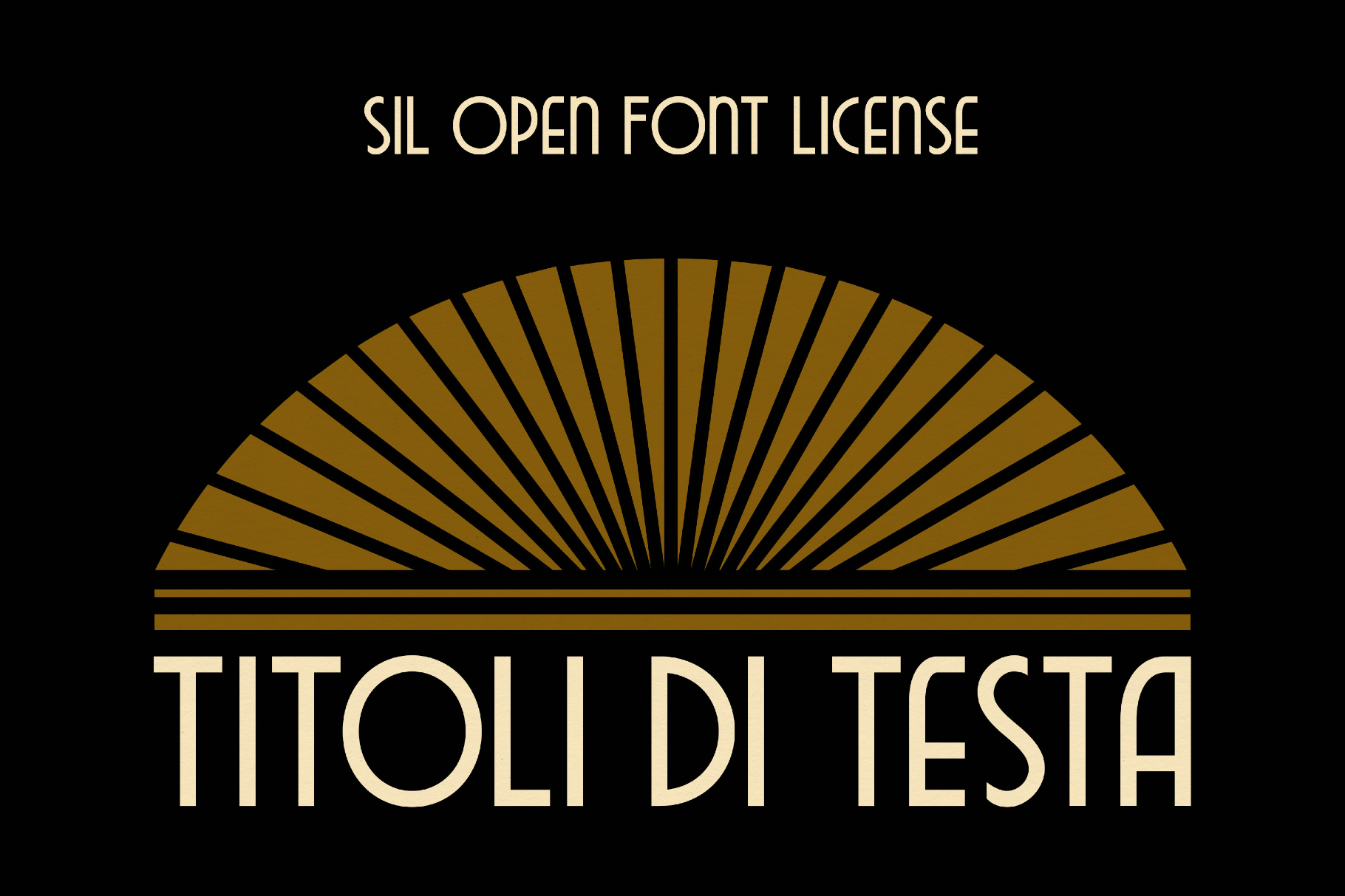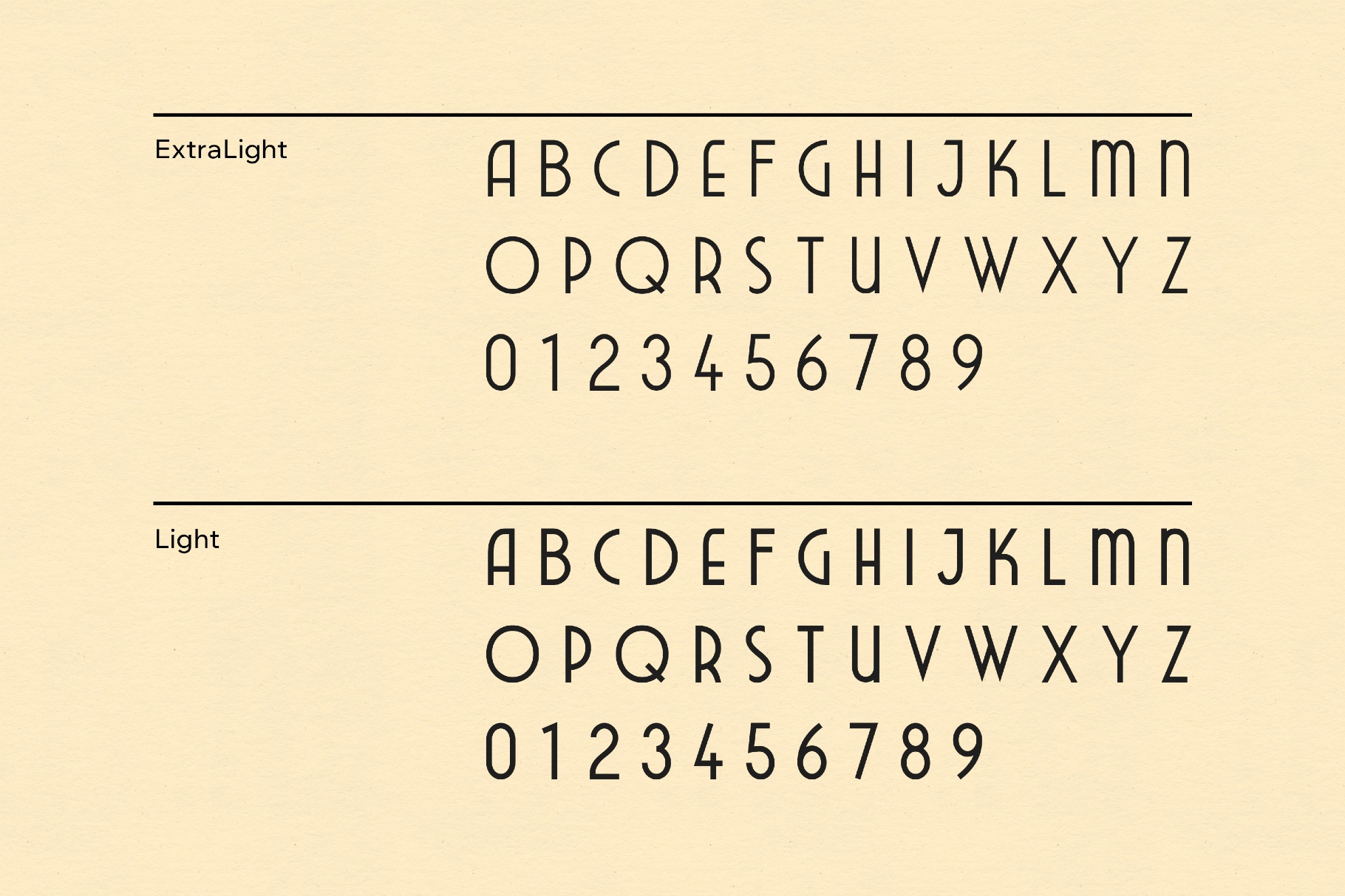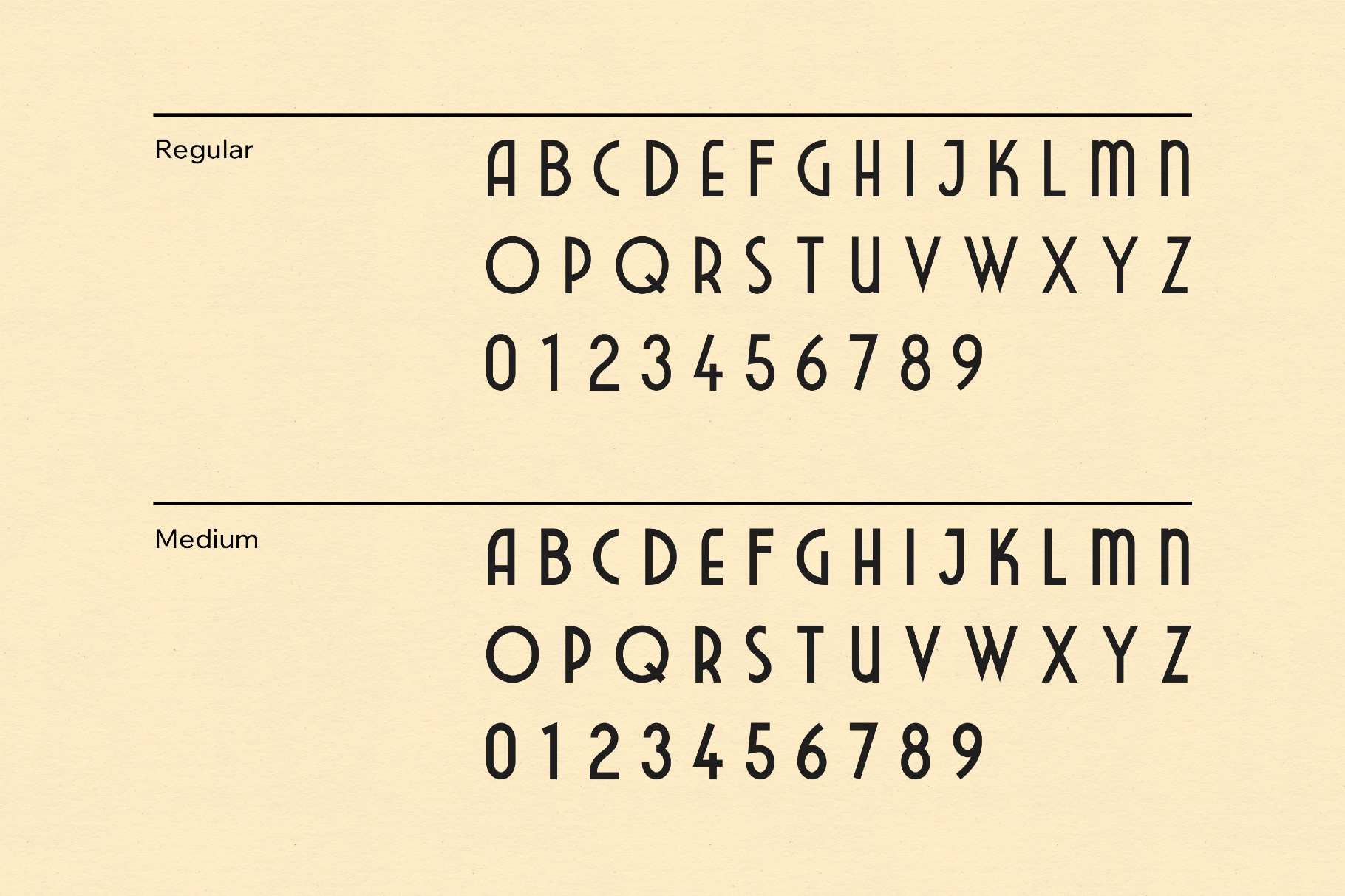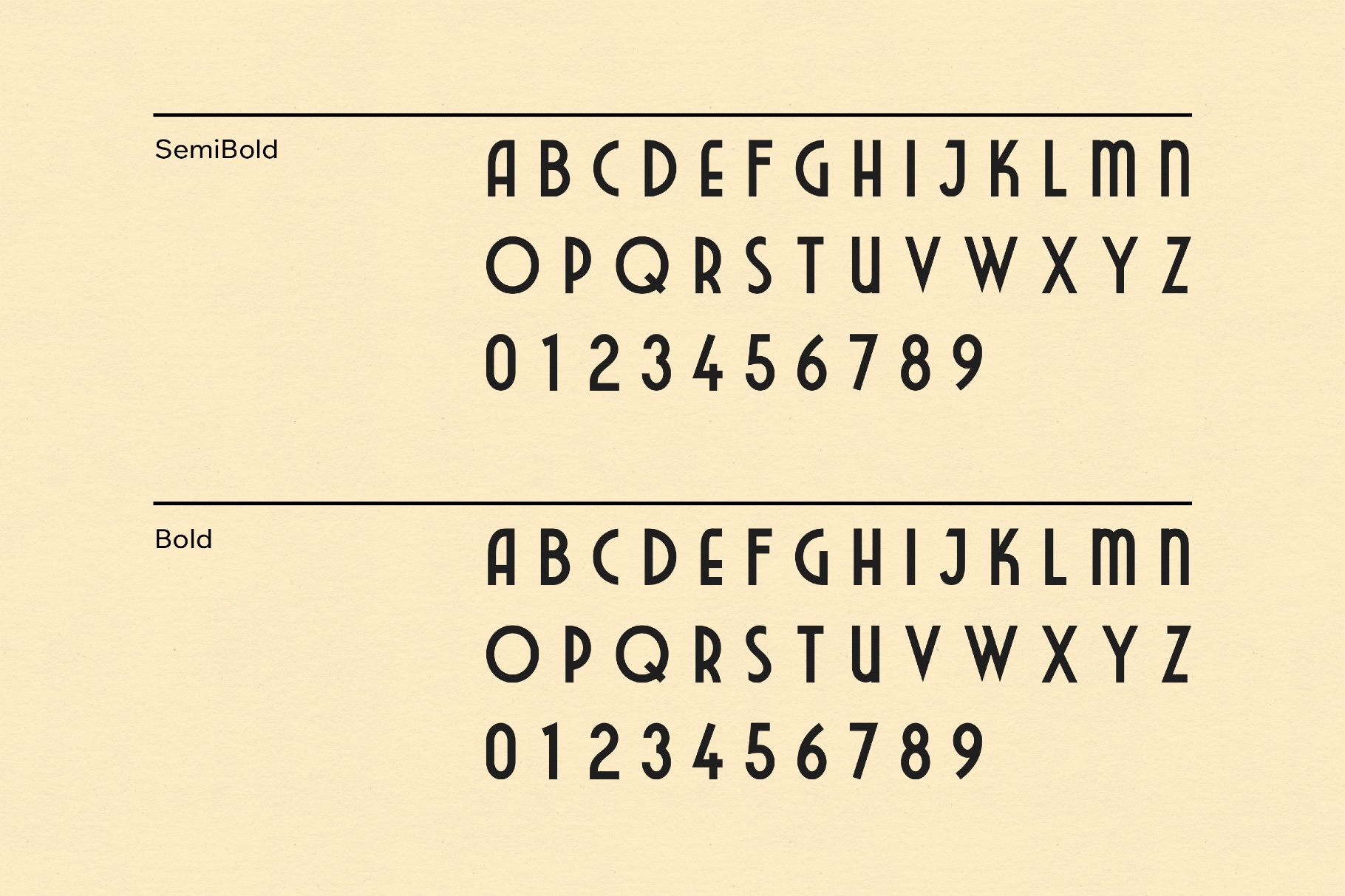
Titoli Di Testa Font
Titoli Di Testa plays like a set of hand-painted Italian film credits, with expressive strokes, chunky curves, and tight counters. It recalls 1960s movie posters and title cards — so it's a natural fit for movie-style headlines, poster typography, festival and theatre branding, book covers, streaming or YouTube thumbnails, album art, packaging fronts, event invitations, and editorials.
• Uppercase letters only.
• Numbers, basic punctuation, and symbols.
• Multilingual support across basic Latin scripts.